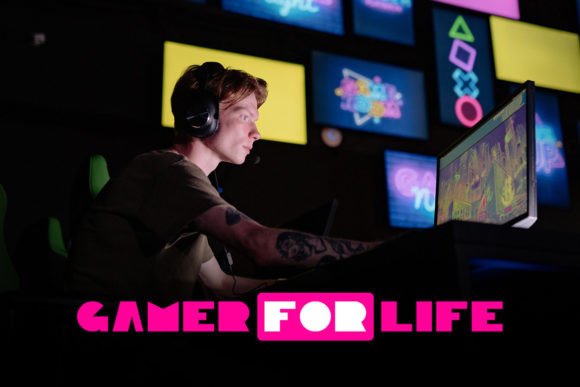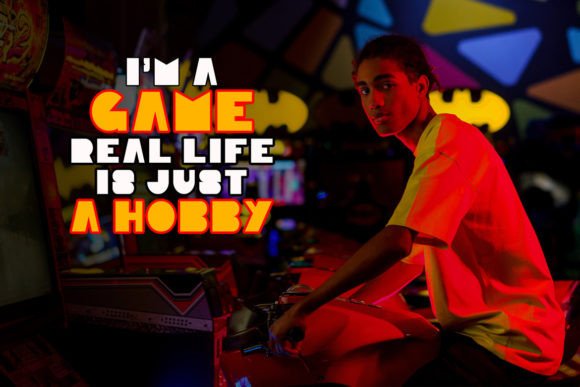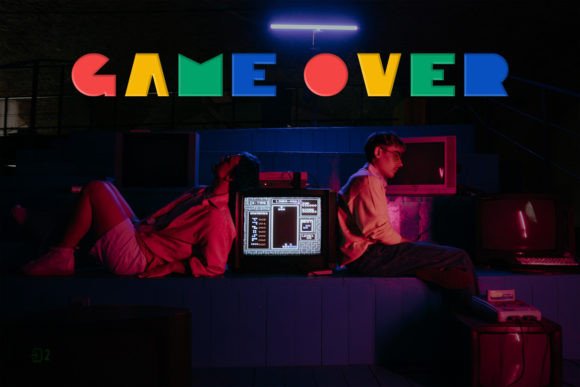
Introduction to Daren Beam Font
Imagine you’re staring at a blank canvas, your mind racing with creative ideas, but struggling to find the perfect font to bring your vision to life. This is where the Daren Beam Font comes in – a game-changing design resource that’s sure to elevate your creative project and make it stand out from the crowd.
With its modern display design and sharp, high-quality lines, the Daren Beam Font is perfect for adding a touch of sophistication to your typography, posters, magazines, and websites. And the best part? It’s available for free download, making it an accessible design resource for designers of all levels.
Whether you’re working on a large-scale project or just need a stylish font for a personal blog, the Daren Beam Font is a valuable addition to any designer’s toolkit. Its transparent background and versatility make it easy to use, while its modern aesthetic ensures that your designs will be on-trend and visually appealing.
Daren Beam Font
- High-quality font suitable for creative projects and designs, available for free download.
- Comes with a transparent background, making it easy to customize and use in various design resources.
- Unique characteristic: Daren Beam Font features a distinctive, modern design with clean lines and geometric shapes, making it ideal for minimalist and contemporary designs.
- Perfect design resource for graphic designers, digital artists, and creatives working on various projects, from logos to typography-focused artworks.
Honest Review: Daren Beam Font
I recently had the opportunity to work with the Daren Beam Font, and I must say it’s been a pleasant experience. This free download is a high-quality resource that has opened up new possibilities for my creative project.
One of the things that works well is the transparent background, which makes it incredibly versatile. I was able to use it for a variety of design elements, from logos to icons, without worrying about distracting backgrounds.
Here are some of the key features that I appreciated:
- High-quality design that looks great on any screen
- Transparent background for seamless integration
- Wide range of applications, from logos to icons and more
However, I did encounter a few limitations. ⚠️ The font may not be suitable for large-scale typography, as it can become difficult to read at certain sizes. Additionally, the character set is somewhat limited, so you may not find all the symbols you need.
Overall, I’m quite impressed with the Daren Beam Font. It’s a valuable design resource that has already enhanced my creative project. I’d definitely recommend it to other designers looking for a high-quality, free download.
Daren Beam Font
Tips for Getting the Most Out of Daren Beam Font
To get the most out of the Daren Beam Font, be sure to:
- Use a transparent background to make the font stand out.
- Experiment with different font sizes and styles to find the perfect look for your design.
- Combine the font with other design elements to create a cohesive and visually appealing design.
The Daren Beam Font is perfect for a variety of creative projects, including: